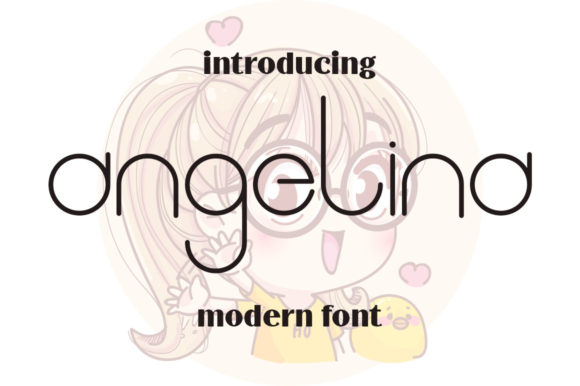
The Angelina Font: A Delicate Sans Serif for Creative Projects
I’ll never forget the time I was working on a branding project for a new boutique client. I had spent hours agonizing over the perfect color palette and logo design, but something was still off. That’s when I realized: I needed the right font. A font that would capture the essence of her elegant and sophisticated brand. After scouring through countless font libraries, I stumbled upon the Angelina font. And let me tell you, it was love at first sight! 💕
The Angelina font is a thin, delicate, and round lettered sans serif font that can easily be matched to an incredibly large set of projects. Its unique charm and versatility make it perfect for creative ideas that need a touch of elegance. In this article, I’ll share my honest review of the Angelina font, provide a practical guide on how to use it, and explore similar fonts and alternatives.
My Honest Review of Angelina Font
- ✅ The delicate and thin lines of the font make it perfect for projects that require a touch of sophistication.
- ✅ The round lettering gives it a friendly and approachable feel, making it suitable for a wide range of projects.
- ✅ The font is highly legible, even at small sizes, making it perfect for body text or captions.
- ✅ The font comes with a range of OpenType features, glyphs, and stylistic alternates, giving you plenty of creative options.
- ⚠️ The font may not be suitable for projects that require a bold or heavy font style.
- ⚠️ Some characters may not be suitable for use at very small sizes, due to the delicate nature of the font.
The Story Behind Angelina Font
The Angelina font was designed by a team of typographers who wanted to create a font that would capture the essence of elegance and sophistication. Inspired by classic typography and modern design trends, the Angelina font was born. With its delicate lines and round lettering, the Angelina font is perfect for creative projects that require a touch of luxury.
| Font Name | Angelina Font |
| Author | cavalera creative |
Q: What type of projects is the Angelina font suitable for?
A: The Angelina font is suitable for a wide range of projects, including branding, packaging, and digital design.
Q: Is the Angelina font available in different weights and styles?
A: The Angelina font comes in a range of weights and styles, including regular, bold, and italic.